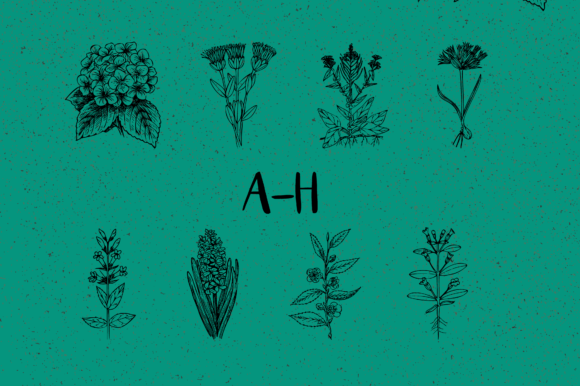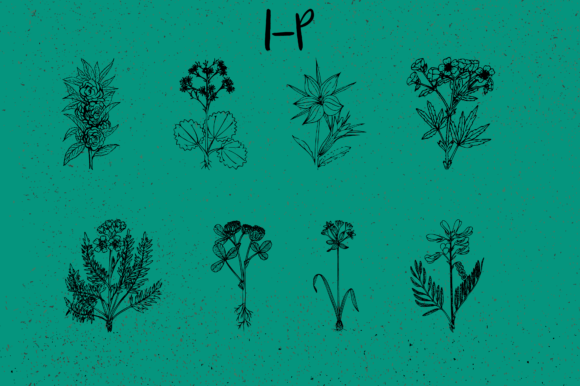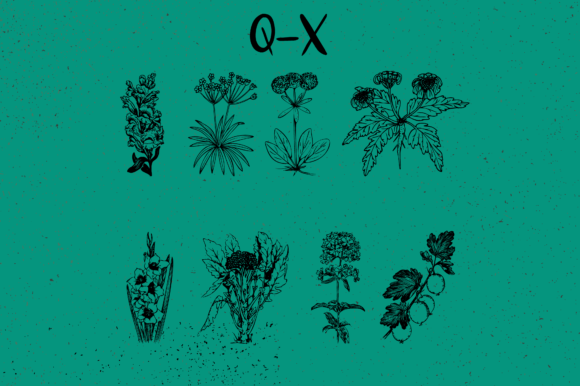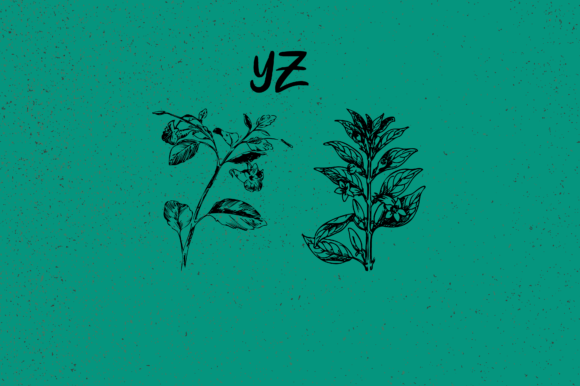
Botanique Font
Botanique is a captivating and versatile dingbats typeface that brings the beauty of floral and botanical elements to your designs. With 62 unique doodles inspired by flowers and plants, this font allows you to effortlessly generate an array of botanical motifs simply by typing capital and small letters, as well as numbers.
The intricate and detailed floral and botanical doodles of Botanique make it a perfect choice for a wide range of creative projects. Whether you’re designing invitations, creating patterns, crafting stationery, or working on digital graphics, Botanique adds a touch of natural elegance and sophistication to your creations.
The versatility of Botanique allows it to be matched with an incredibly large set of projects. Its floral and botanical doodles can be used to enhance various designs, including wedding invitations, greeting cards, packaging, logos, and more. By incorporating Botanique into your creative ideas, you’ll notice how it instantly makes them stand out with its unique and eye-catching elements.
The beauty of Botanique lies not only in its ability to complement floral themes but also in its versatility to add a touch of nature-inspired charm to a variety of design styles. The floral and botanical doodles can be combined, arranged, and customized to suit your specific project requirements, giving you the freedom to create truly unique and personalized designs.
Whether you’re aiming for a romantic, whimsical, or minimalist aesthetic, Botanique provides a range of floral and botanical options that can be easily incorporated into your designs. The carefully crafted doodles capture the intricate details and graceful forms of flowers and plants, bringing a sense of natural beauty and serenity to your projects.
Incorporating Botanique into your creative endeavors will elevate your designs and evoke a sense of sophistication and elegance. Its versatile nature and botanical charm make it a valuable asset in your font collection, empowering you to add a touch of natural beauty to your creative ideas.
In summary, Botanique is a versatile and captivating dingbats typeface that offers 62 floral and botanical doodles. Its ability to match a wide range of projects makes it a valuable addition to your creative ideas. By incorporating Botanique into your designs, you’ll notice how it instantly enhances and elevates them with its unique and eye-catching floral and botanical elements.